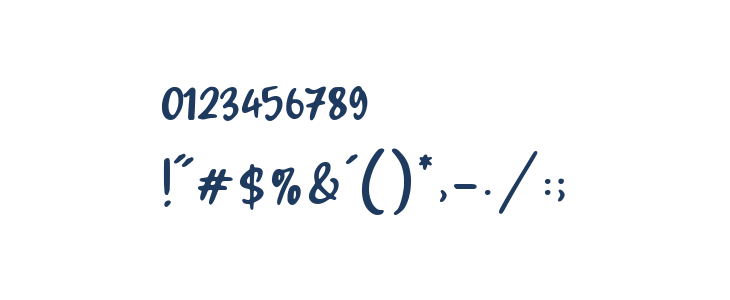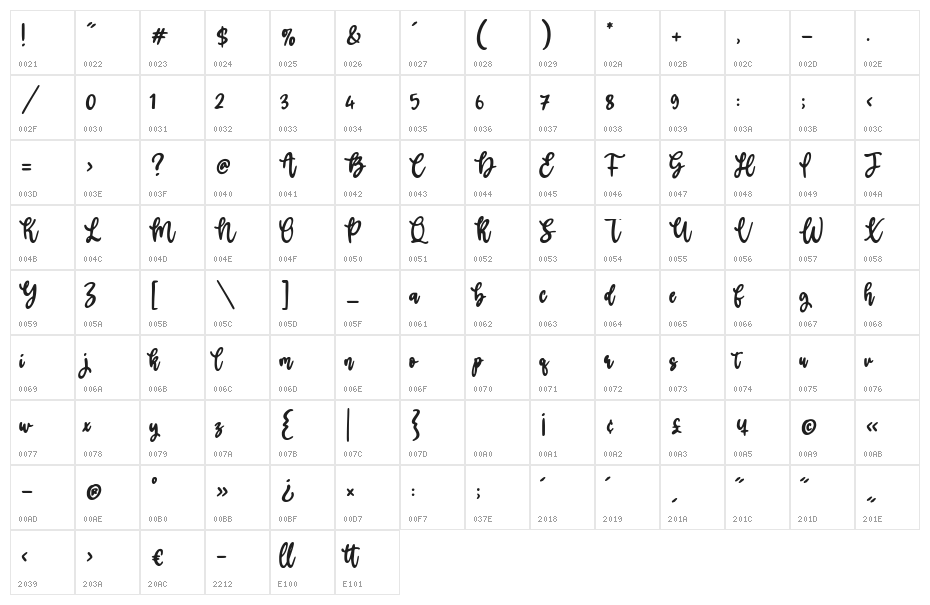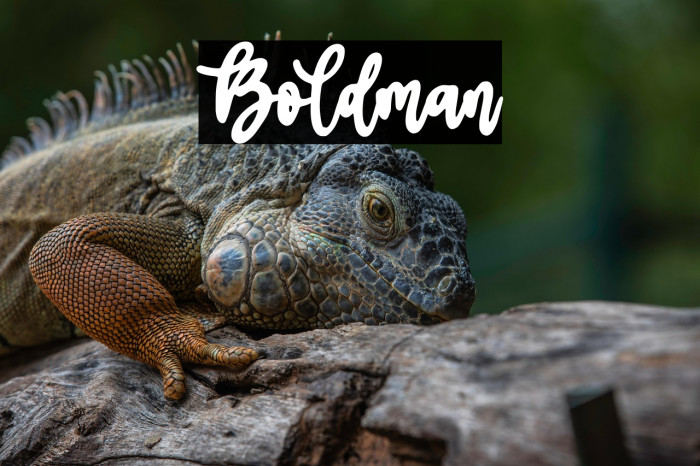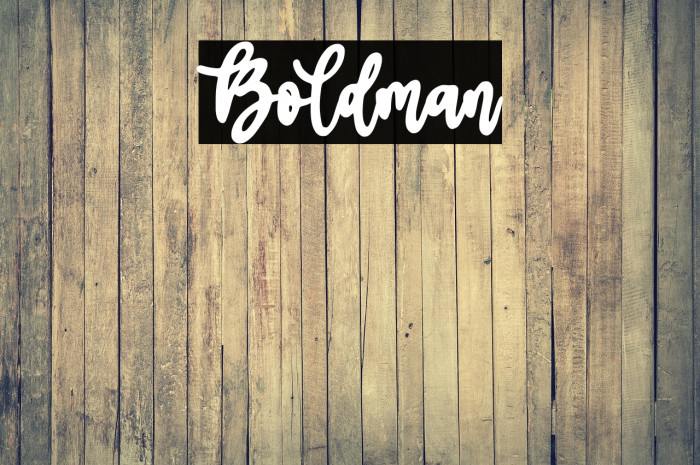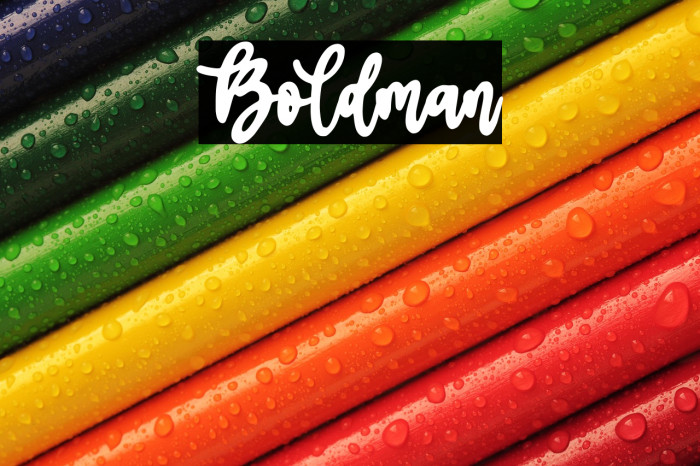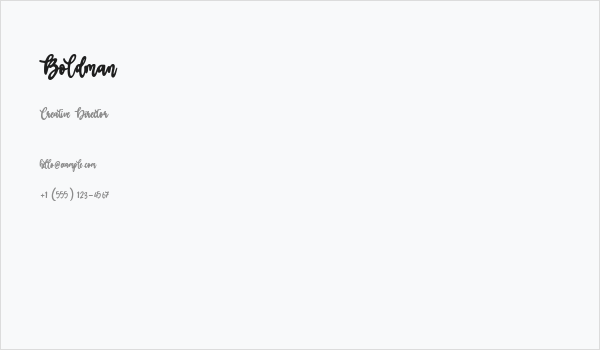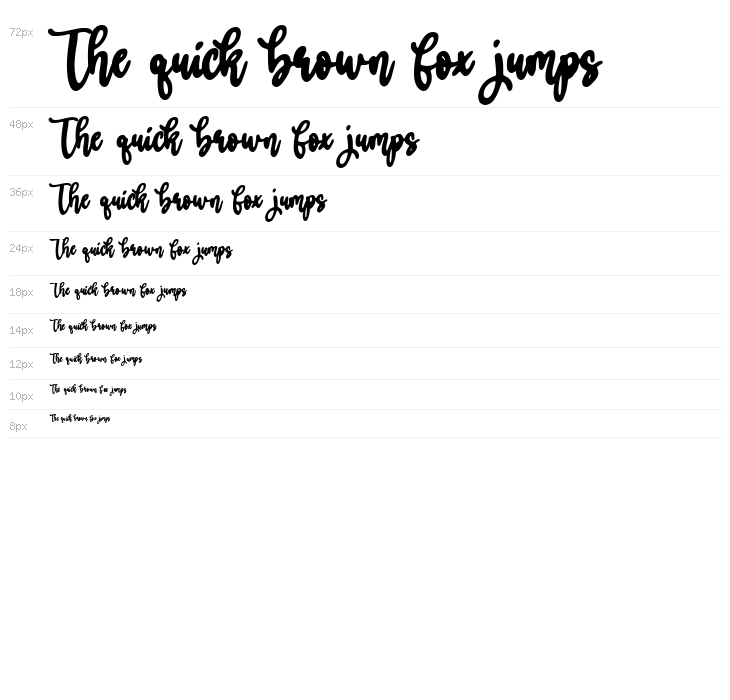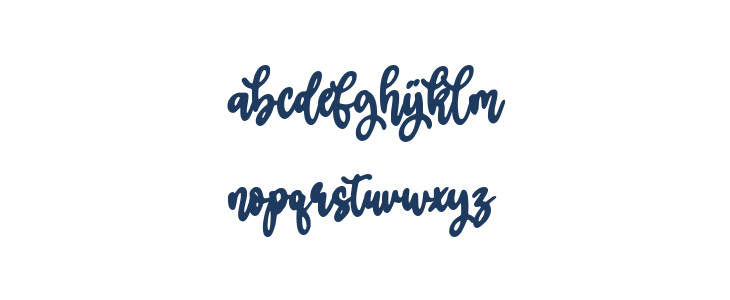
Boldman Font
Boldman Description
This font features a playful and energetic script style with bold, flowing strokes that create a sense of movement and dynamism. The characters are interconnected, giving it a handwritten feel, while maintaining a consistent thickness throughout. The uppercase letters are slightly larger and more pronounced, adding emphasis and a touch of elegance. The lowercase letters are rounded and smooth, enhancing readability. The numerals and special characters maintain the same lively style, making it versatile for various uses. Its overall appearance is both modern and friendly, suitable for projects that require a personal touch.
| Use Case | Logos, Headlines, Invitations |
| Proposed Projects | Ideal for greeting cards, invitations, branding, social media graphics, and any project needing a personal, lively touch. |